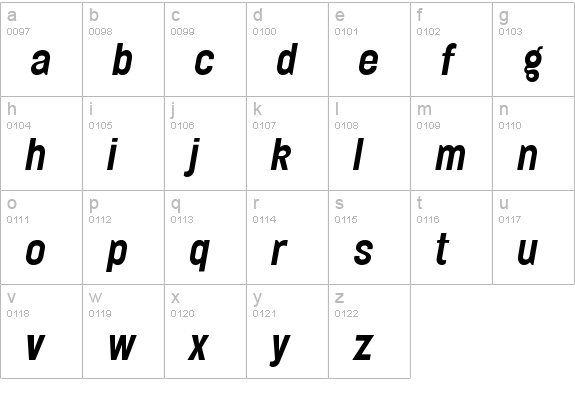
The Elephant-MediumOblique font is a striking and versatile typeface that exudes elegance and sophistication. Its medium weight with a subtle slant adds a touch of modern flair to any design project. With its clean lines and smooth curves, this font is perfect for conveying a sense of professionalism and style. Best of all, the Elephant-MediumOblique font is available for free download at FontsMarket.com. Whether you're working on a logo, branding materials, or a website design, this font is sure to make a bold statement. Don't miss out on the opportunity to enhance your projects with this stunning typeface that is both timeless and contemporary. Download it now and elevate your designs to the next level!